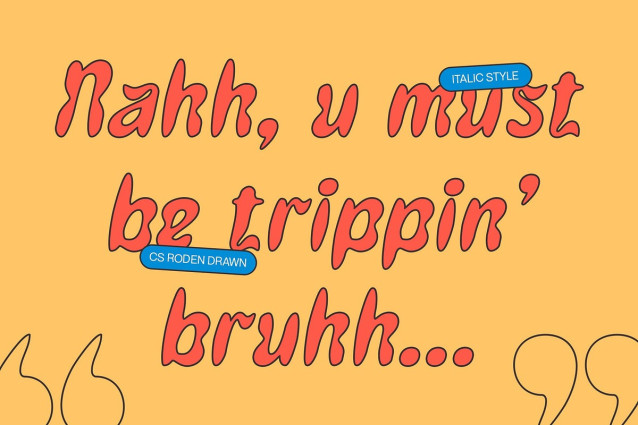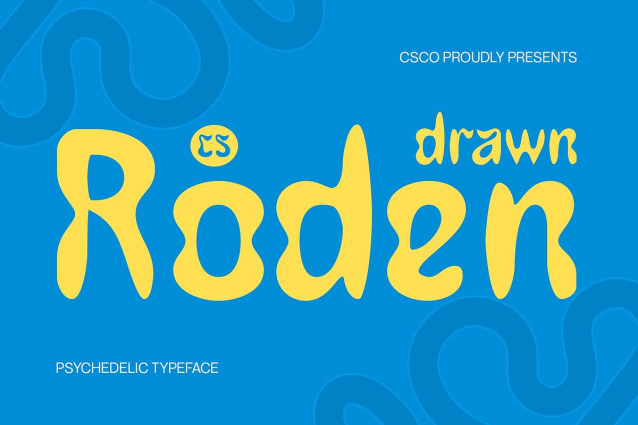
CS Roden Drawn Font
CS Roden Drawn Font is a modern sans serif display font that embraces a psychedelic, wavy form and organic flow. Its freely curved, unconventional letterforms deliver a playful and expressive personality—ideal for design projects that want to stand out with a bold and funky presence.
Drawn Texture for Artistic Appeal Featuring a drawn, hand-crafted effect, this font radiates creativity and warmth. The imperfect strokes and fluid contours offer a raw, artistic touch that feels alive—perfect for creative visuals that require a sense of movement and spontaneity.
Bold, Organic, and Experimental With its unique blend of modern sans serif structure and psychedelic charm, this expressive font becomes a go-to choice for experimental posters, album artwork, or expressive branding. It brings an energetic rhythm that adds depth and character to every letter.
Ideal for Music, Culture, and Creative Branding Whether you’re designing for music festivals, album covers, streetwear brands, or cultural events, this eccentric font injects a touch of funk and free spirit. Its bold look and expressive letterforms bring storytelling power to any design that seeks to break boundaries while staying warm and human. This is a font that celebrates creativity, individuality, and artistic freedom.